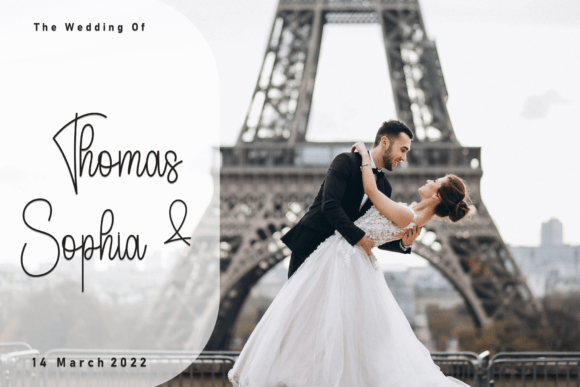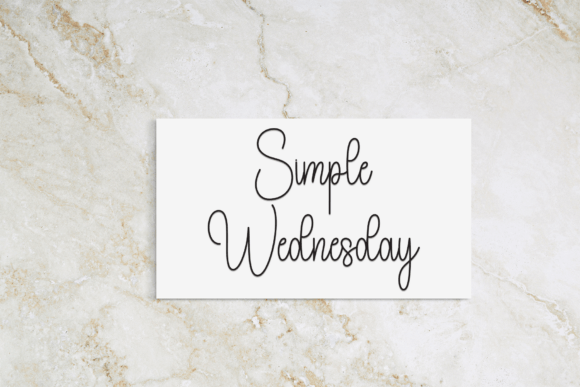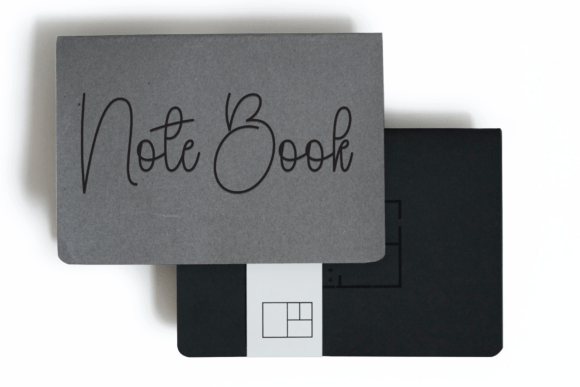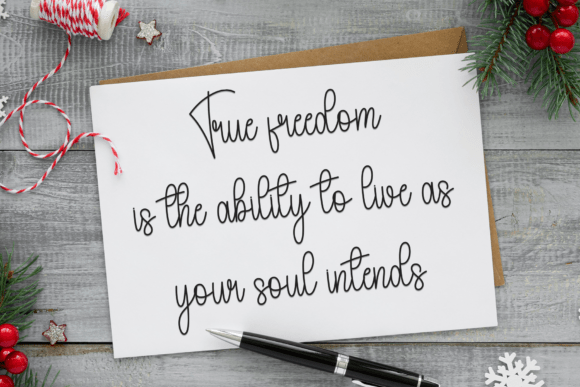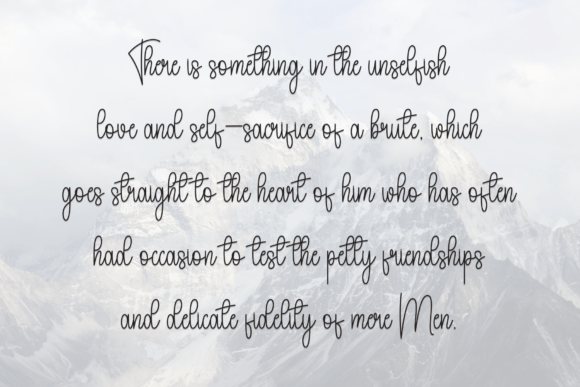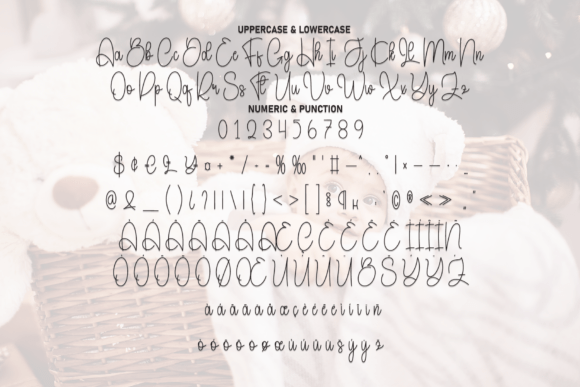
Baby Boho Font: The Ultimate Handwritten Script for Creative Designs
Are you on the hunt for a font that exudes warmth, approachability, and zest? Look no further than the Baby Boho Font, a captivating handwritten script that is perfect for all your creative muses. This alluring font is designed to breathe life into your designs, adding a distinctive sprinkle of charisma that sets them apart from the rest.
The Perfect Font for Wedding Invitations and Greeting Cards
One of the standout features of the Baby Boho Font is its ability to elevate wedding invitations and greeting cards to a whole new level. Its congenial and lively allure fluently mingles with sophistication, breathing vitality into your designs with a whimsical yet refined twirl. Whether you’re a designer looking to create stunning wedding stationery or a crafter seeking to add a personal touch to your greeting cards, this font is sure to impress.
What Makes Baby Boho Font So Special?
So, what makes the Baby Boho Font so special? For starters, its handwritten script style gives it a warm and approachable feel that’s perfect for designs that require a personal touch. The font’s lively and whimsical nature also makes it ideal for designs that require a bit of flair and personality. Plus, its sophisticated undertones ensure that it remains elegant and refined, making it suitable for a wide range of creative projects.
Endless Design Possibilities with Baby Boho Font
The beauty of the Baby Boho Font lies in its versatility. This engaging, personality-rich font can be used for a wide range of creative projects, from wedding invitations and greeting cards to branding and packaging designs. Its unique charm and character make it the perfect choice for designers and crafters looking to add a touch of whimsy and sophistication to their work.
Why Designers and Crafters Love Baby Boho Font
Designers and crafters love the Baby Boho Font for its ability to bring a sense of warmth and personality to their designs. Its handwritten script style and lively allure make it perfect for creating unique and eye-catching designs that stand out from the crowd. Plus, its ease of use and versatility make it a joy to work with, allowing designers and crafters to focus on bringing their creative vision to life.
Tips for Getting the Most Out of Baby Boho Font
To get the most out of the Baby Boho Font, here are a few tips to keep in mind:
- Experiment with different font sizes and styles to add visual interest to your designs.
- Pair the Baby Boho Font with other fonts to create a unique and eye-catching combination.
- Use the font’s whimsical nature to add a touch of personality to your designs.
- Take advantage of the font’s sophisticated undertones to add a level of elegance to your designs.
In conclusion, the Baby Boho Font is a captivating handwritten script font that is perfect for designers and crafters looking to add a touch of warmth, approachability, and zest to their designs. Its congenial and lively allure fluently mingles with sophistication, breathing vitality into creative projects with a whimsical yet refined twirl. Whether you’re creating wedding invitations, greeting cards, or branding and packaging designs, this font is sure to impress.